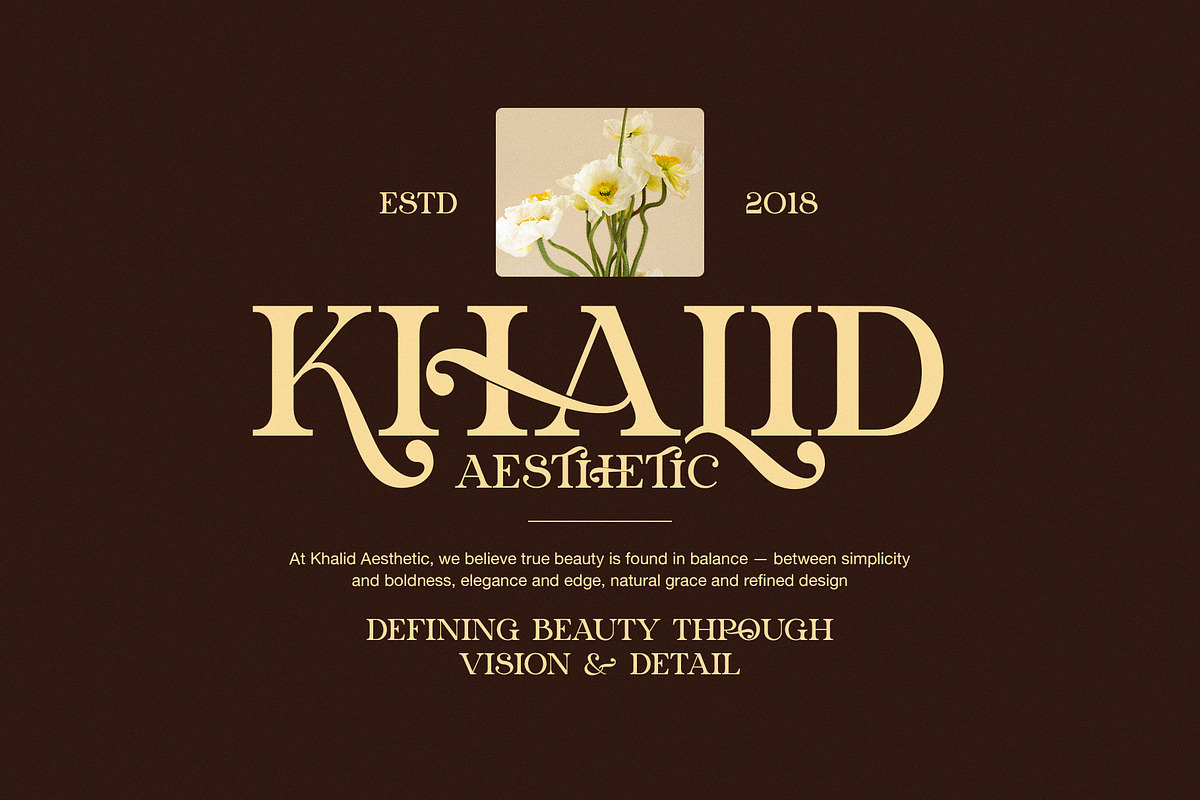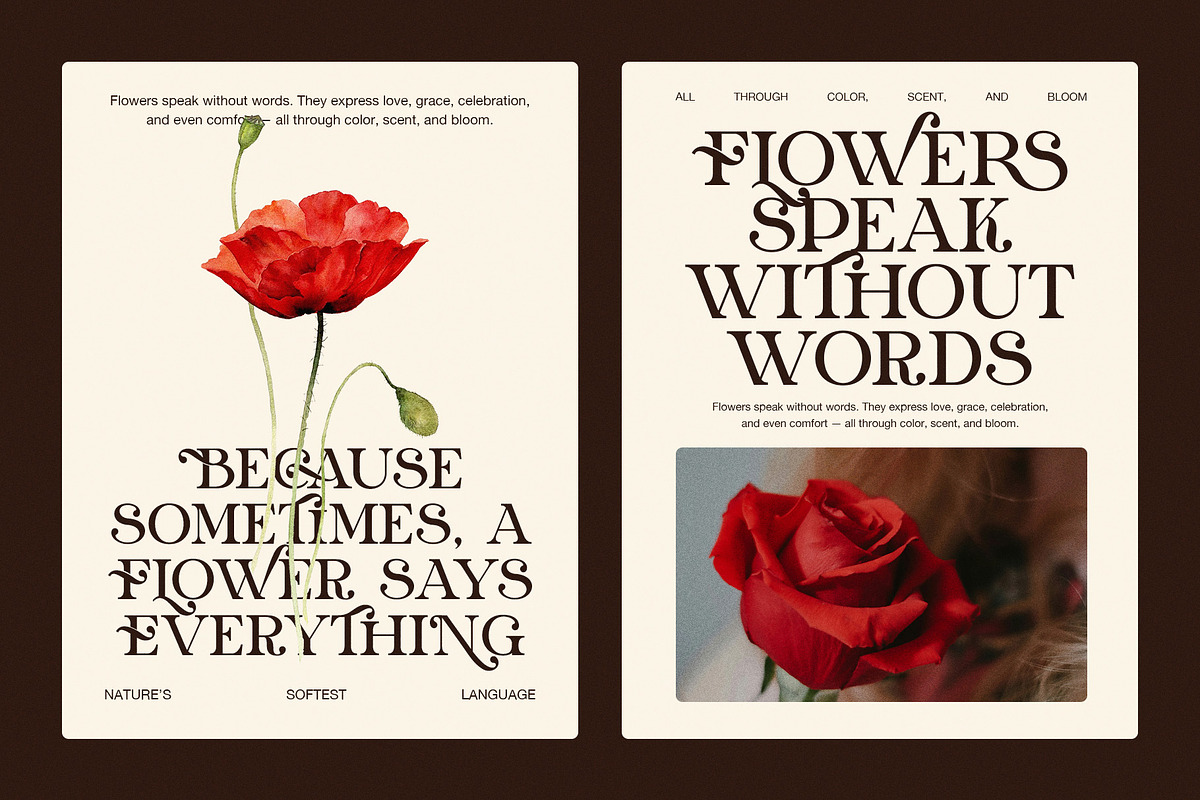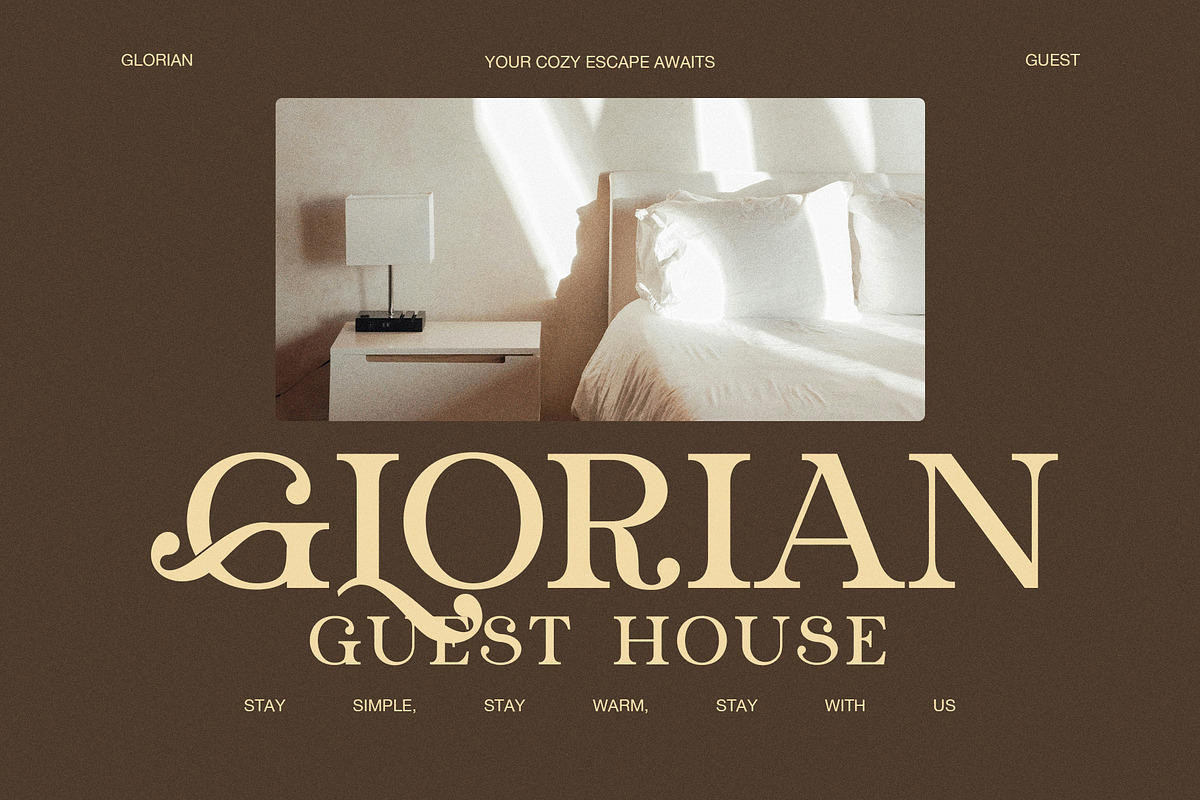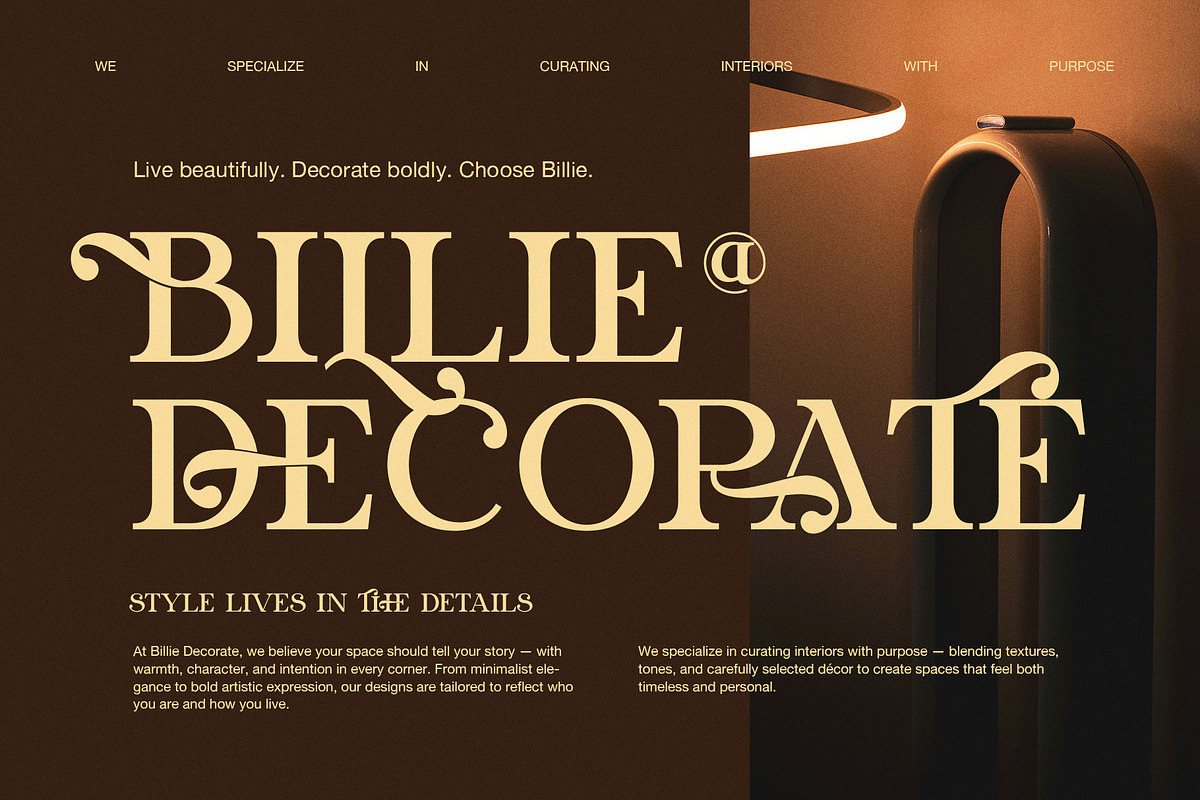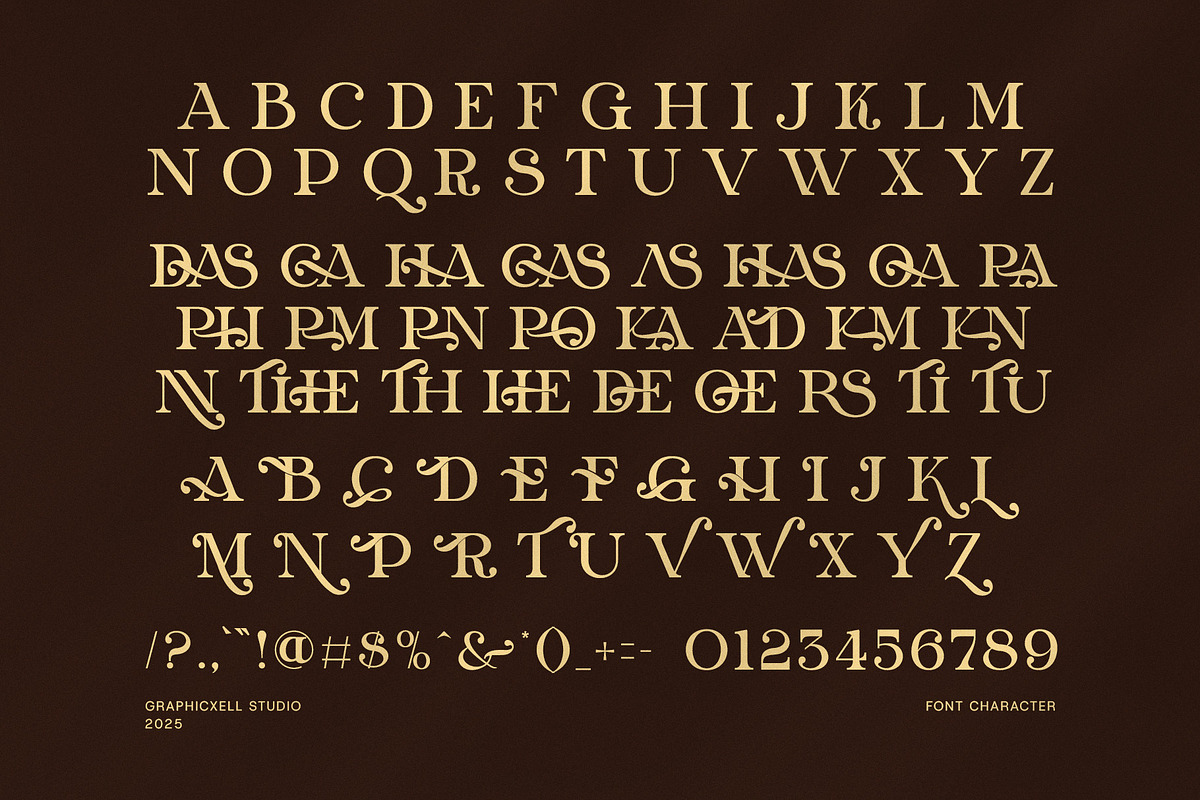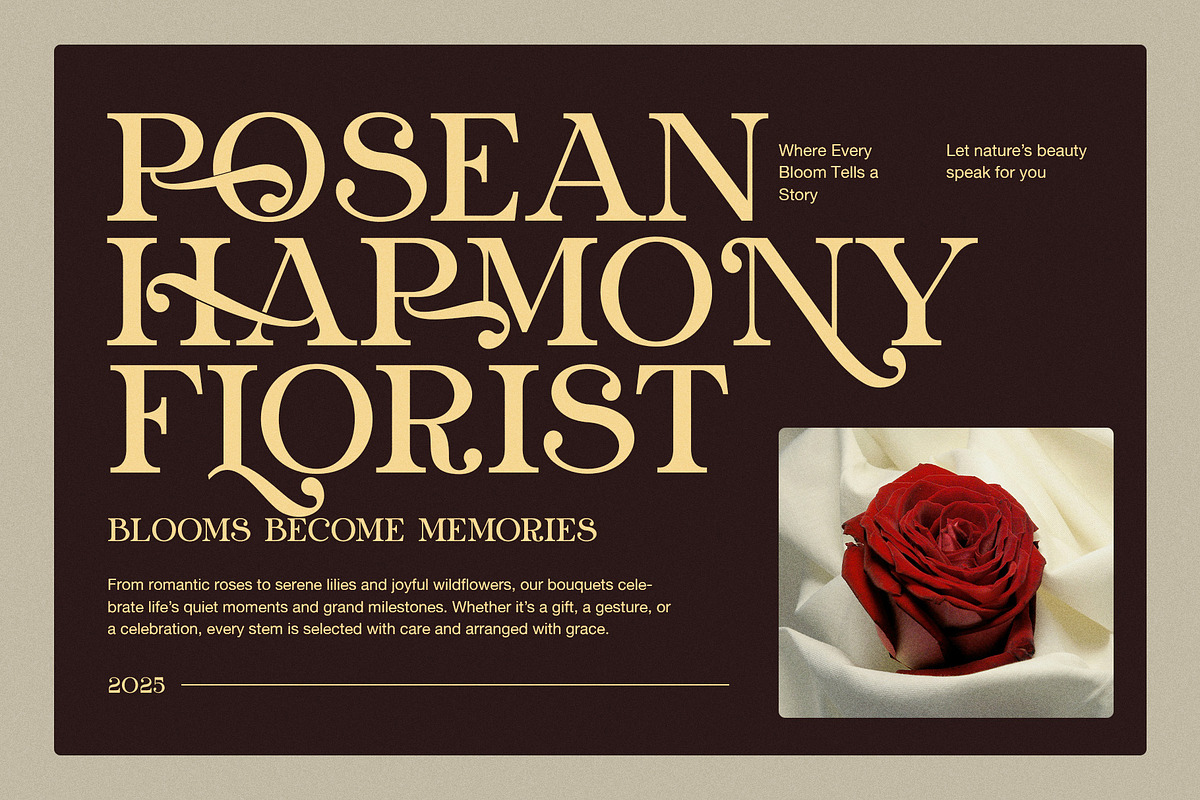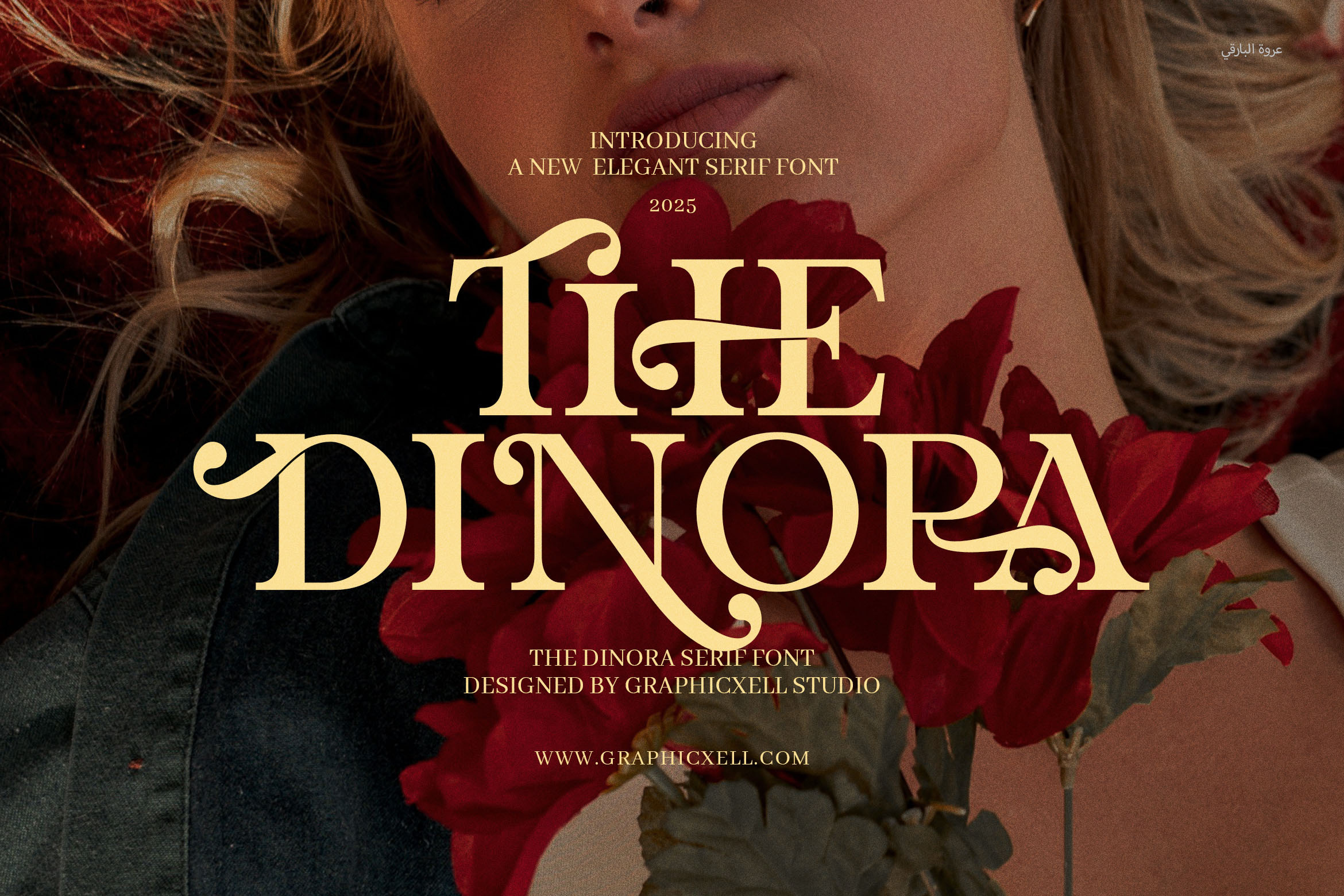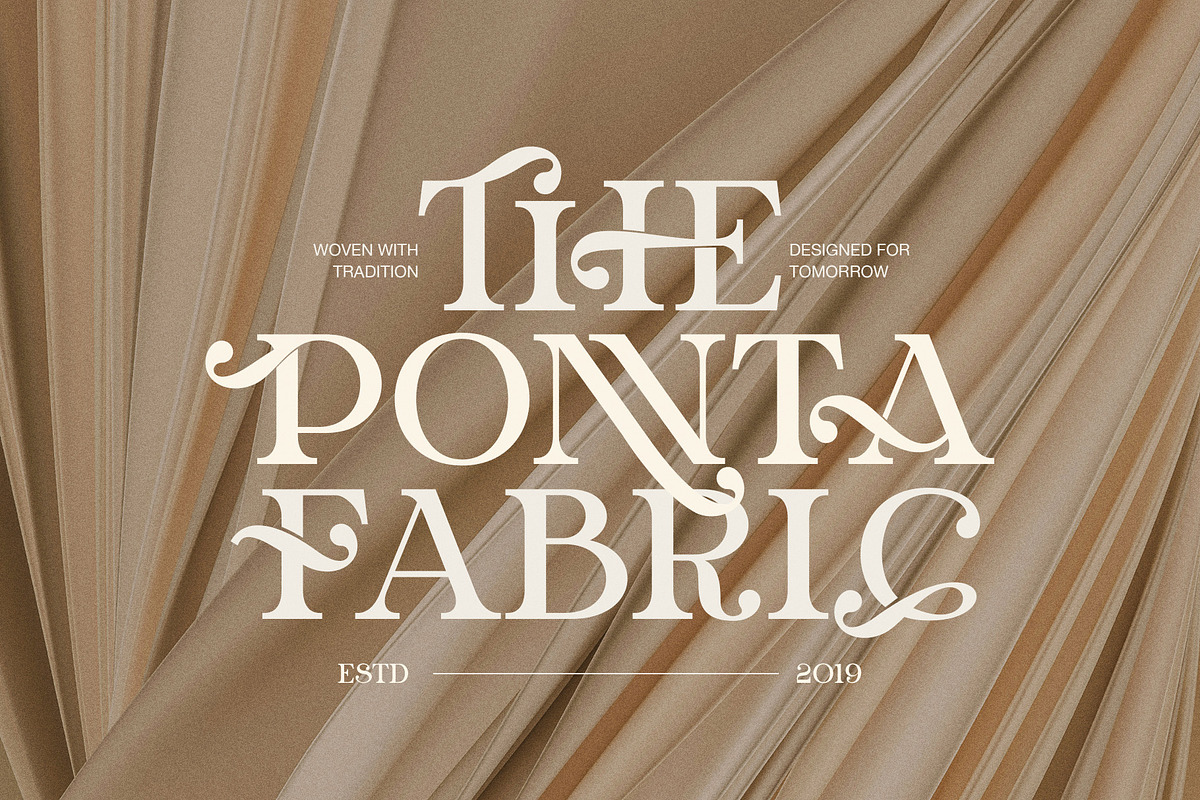
The Dinora Elegant Serif Font
Step into a world of refined style with The Dinora Elegant Serif Font. Designed to deliver modern sophistication with a timeless twist, this font is the perfect addition to any creative toolkit. With its strong presence and graceful curves, Dinora is built for designers who want to make an impression—without losing clarity.
This font features proportional letterforms that are ideal for all types of branding. From sharp headlines to elegant body text, every character is crafted to create visual balance. Even better, functional ligatures add a polished, custom feel that makes your design stand out.
What Makes Dinora Serif Font a Must-Have:
Elegant yet bold: Combines strength with a soft, stylish finish
Highly legible: Designed to look great in both print and digital spaces
Versatile for all needs: Use it for logos, packaging, social media, websites, and more
Professional ligatures: Adds smooth connections between letters for a high-end feel
Perfect for luxury branding: Ideal for fashion, food, boutiques, and editorial layouts
Easy to pair: Works beautifully with minimalist sans-serifs or light script fonts
Thanks to its thick strokes and elegant details, The Dinora brings personality and depth to every layout. Whether you're designing for a boutique clothing line, a premium skincare brand, or an upscale magazine spread, this font creates a lasting impression.
Additionally, its flexible design allows you to maintain consistency across different platforms. From business cards and brochures to blog headers and online shops, Dinora adapts effortlessly.
In summary, The Dinora Elegant Serif Font blends modern charm with classic appeal, making it a powerful choice for standout branding and stylish design. If you're ready to elevate your visual identity, Dinora is the perfect starting point.